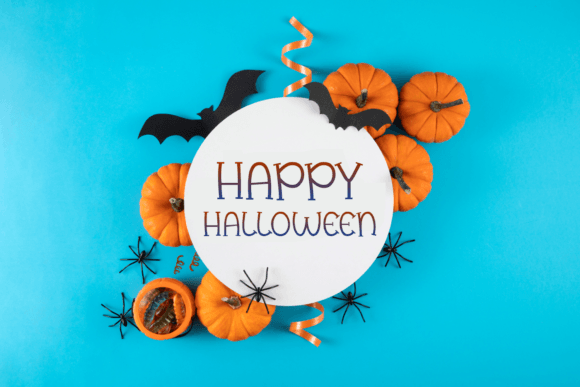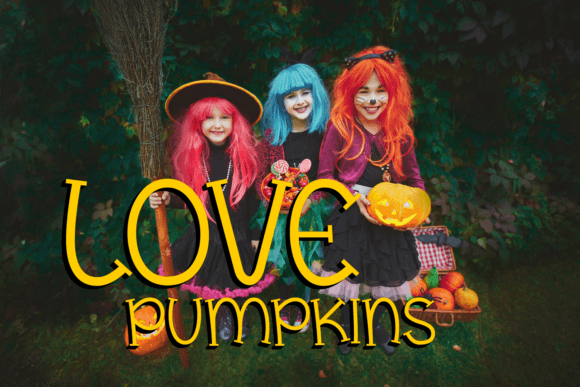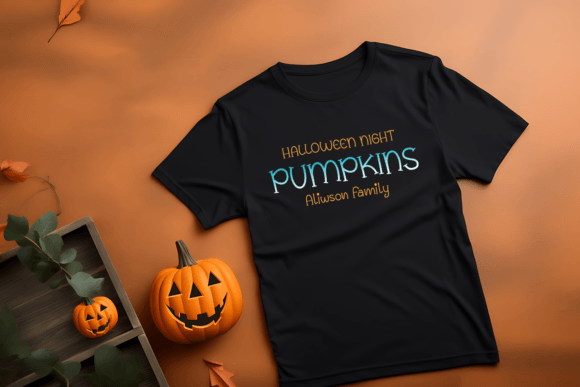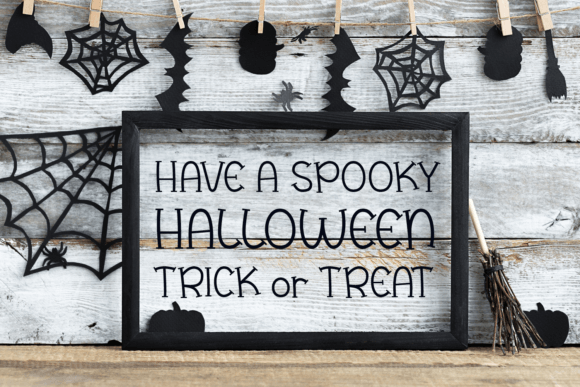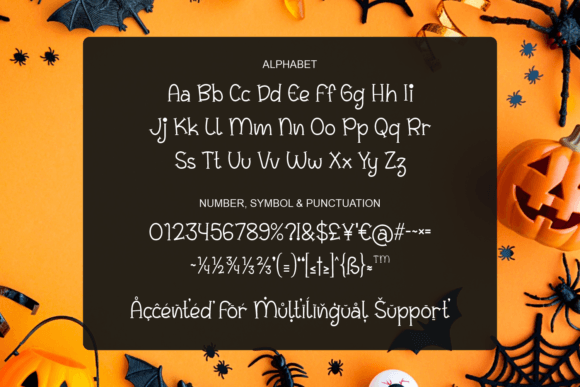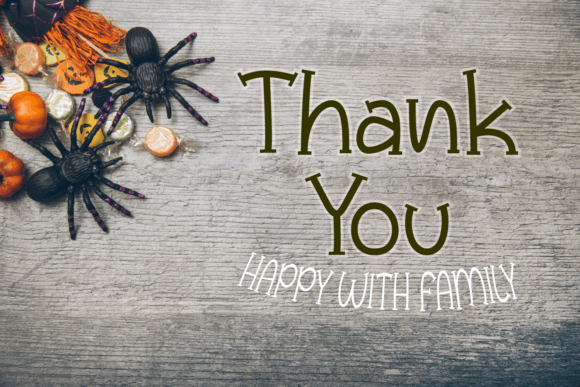
Introduction to Love Pumpkins Font
As a designer, have you ever stumbled upon that one font that instantly elevates your entire creative project? For me, it was the moment I discovered the Love Pumpkins Font. I was working on a children’s book cover, and I wanted something that would capture the essence of childhood wonder. That’s when I came across this adorable display font, and I knew I had found my perfect match.
With its cute and playful design, the Love Pumpkins Font is a game-changer for any design resource. Its high quality and transparent background make it a versatile addition to any creative project. Whether you’re working on a children’s theme or just want to add a touch of whimsy to your design, this font is sure to impress. And the best part? It’s available for a free download, making it an accessible design resource for designers of all levels.
Key Features of Love Pumpkins Font
- High-quality design resource ideal for creative projects, including Halloween-themed designs and decorations.
- Transparent background option allows for easy customization and versatility in your design project.
- Unique, hand-drawn style with intricate details, making it perfect for adding a personal touch to your designs.
- Designed with a high-resolution output in mind, ensuring crisp and clear text display on various devices and screens.
- Perfect for use in digital and print design projects, including social media graphics, posters, and flyers.
Honest Review: Love Pumpkins Font
As a designer, I’m always on the lookout for high-quality design resources that can elevate my creative projects. The Love Pumpkins Font is one such resource that caught my attention. I decided to give it a try and see if it lives up to its promise.
What works well about the Love Pumpkins Font is its unique and playful design. The font is perfect for projects that require a touch of whimsy and charm. The transparent background makes it easy to layer and combine with other design elements, giving me a lot of creative freedom.
Here are some of the features that I like about the Love Pumpkins Font:
- Transparent background for easy layering and combination
However, I do have some limitations to report. The font is not ideal for formal or professional projects, as it’s a bit too playful and informal. Additionally, the font file size can be a bit large, which may be a concern for designers working on projects with tight file size constraints.
Overall, I’d say that the Love Pumpkins Font is a great addition to any designer’s toolkit. While it may not be suitable for all types of projects, it’s a fun and creative resource that’s perfect for designers looking to add a touch of personality to their work.
How to Use Love Pumpkins Font
The Love Pumpkins Font is a unique, high-quality design resource ideal for creative projects. This font features a transparent background, making it versatile for various applications.
Tips for Getting the Most Out of Love Pumpkins Font
Experiment with different font sizes and combinations to achieve a unique design.
The Love Pumpkins Font is suitable for various creative projects, including:
- Invitations and greeting cards
- Party decorations and signage
- Photography captions and quotes
Alternatives to Love Pumpkins Font
Compared to Love Pumpkins Font, Great Vibes Font has a more refined and sophisticated look, making it suitable for a wider range of design applications. It’s a great alternative for designers who want to add a touch of whimsy and personality to their design without sacrificing readability.